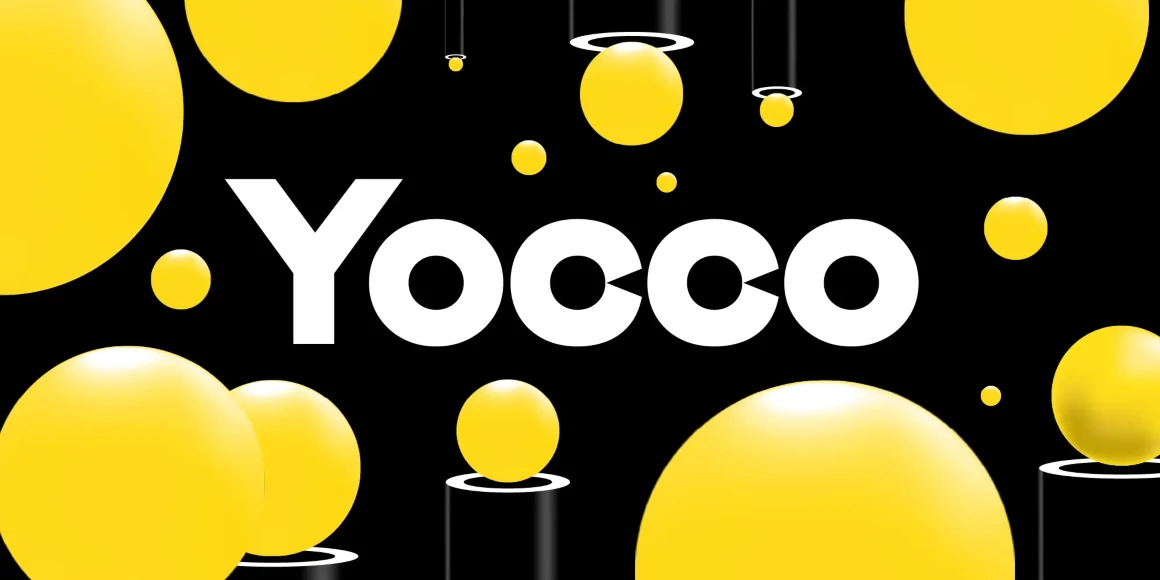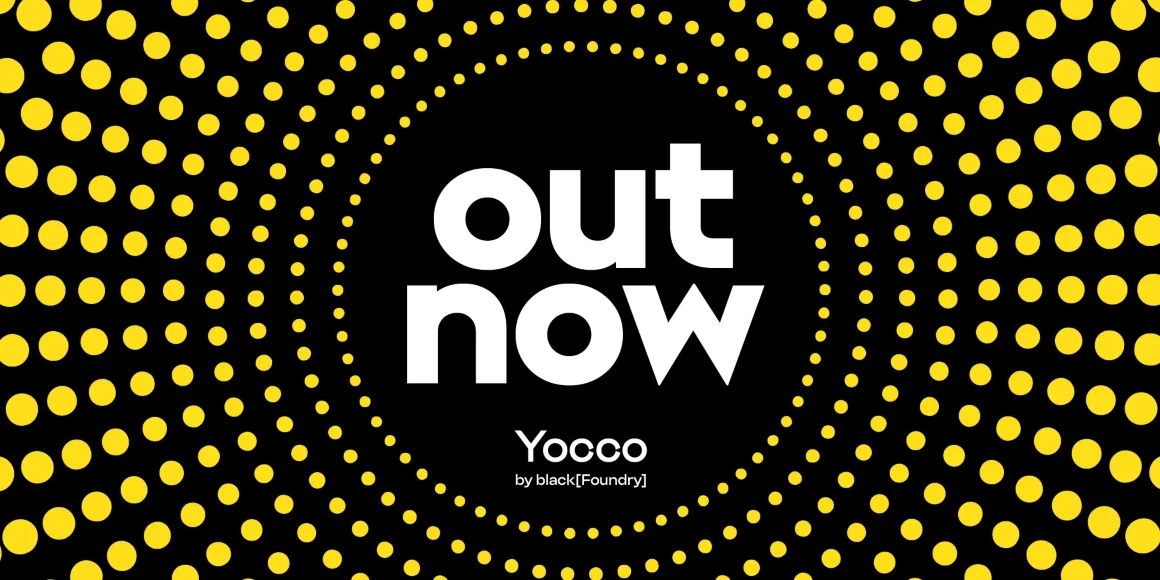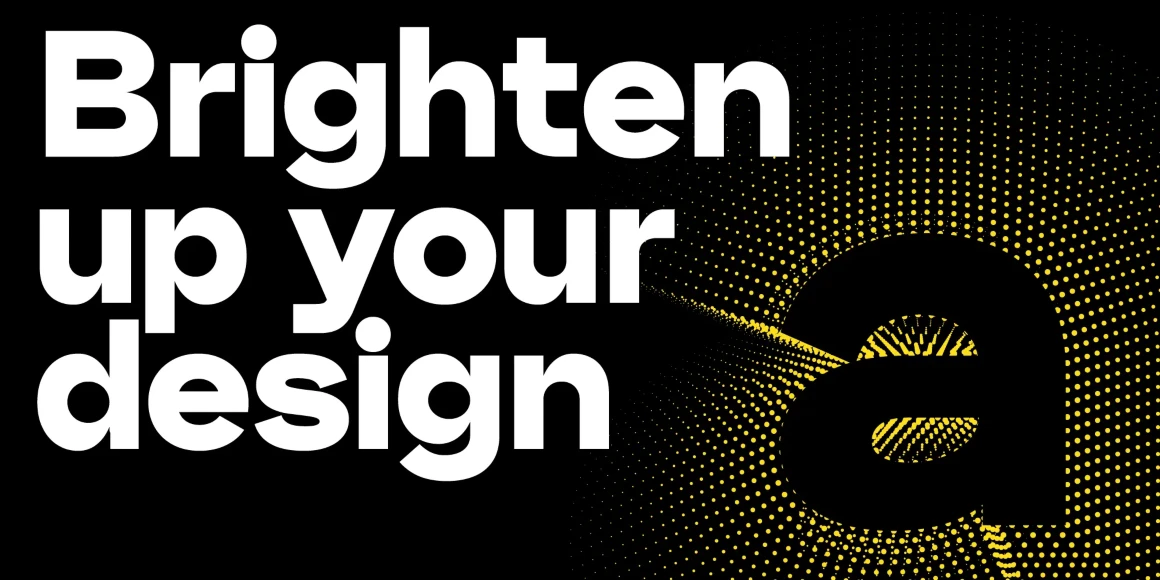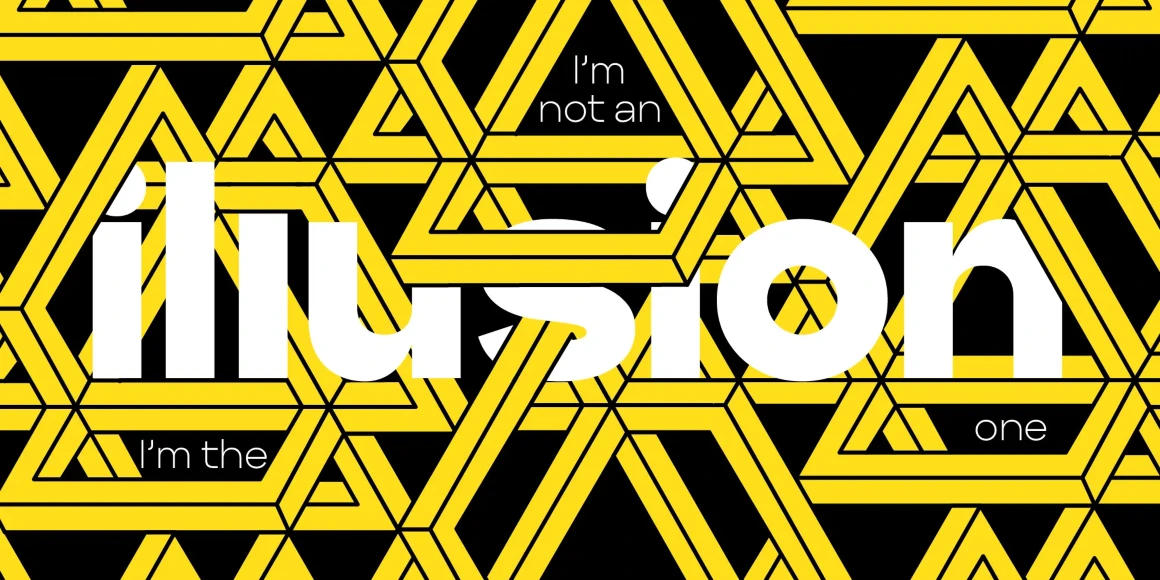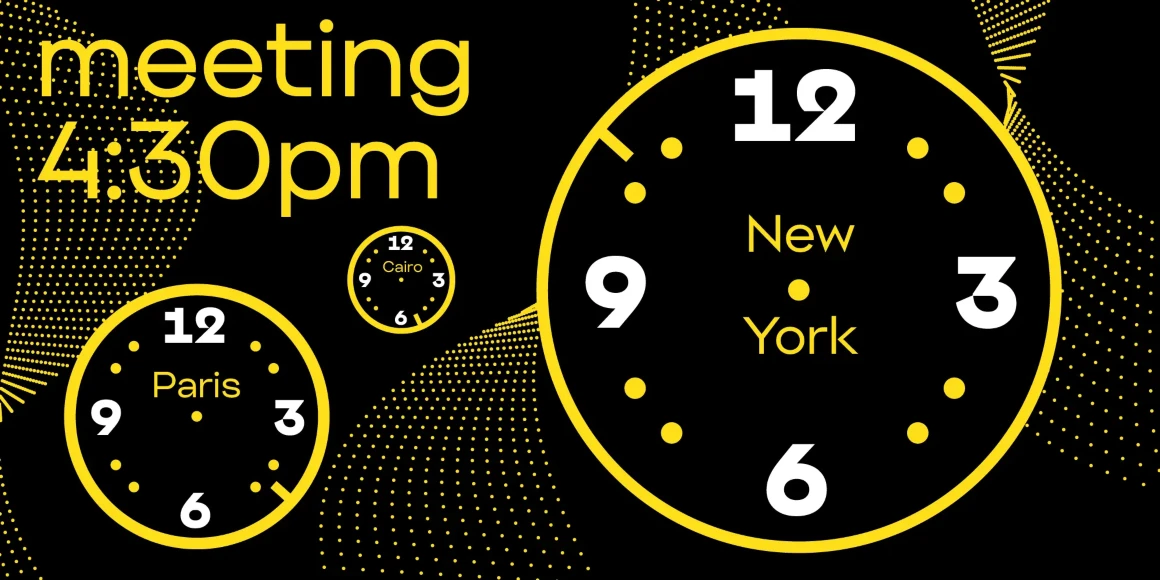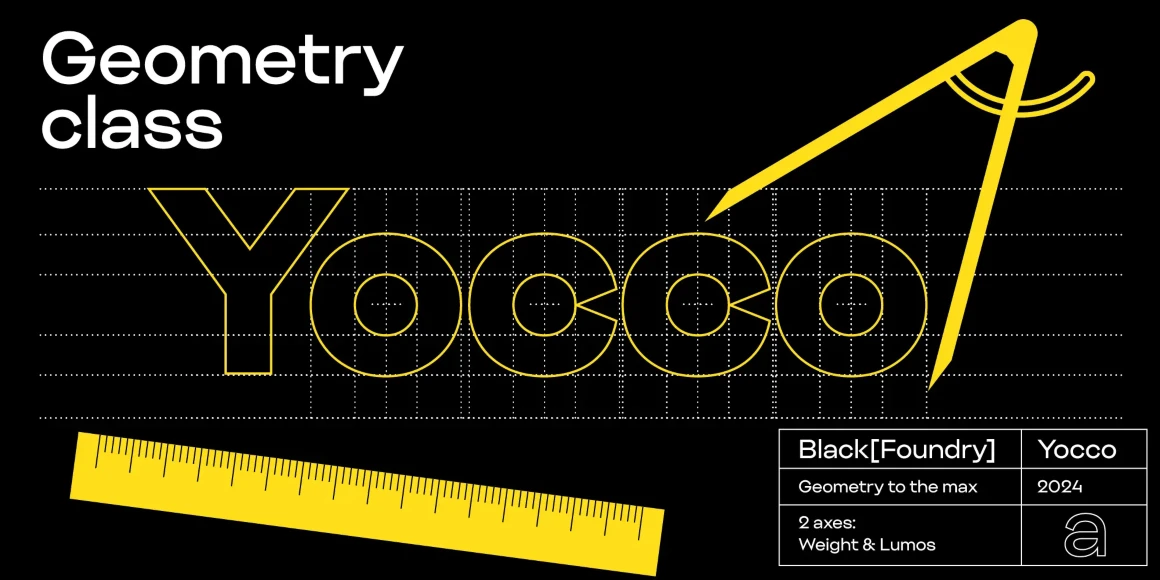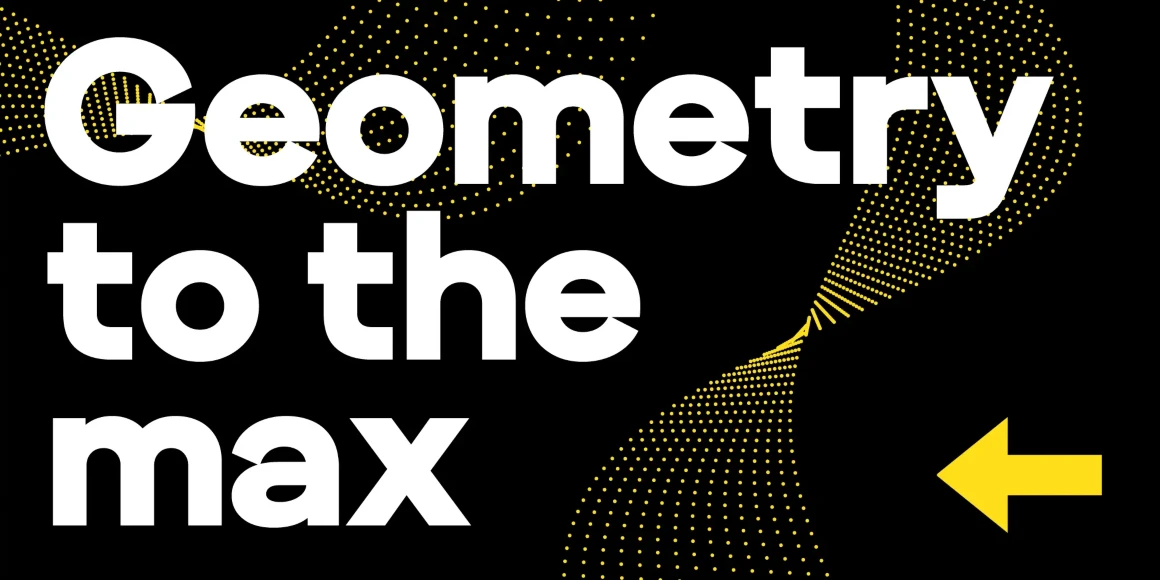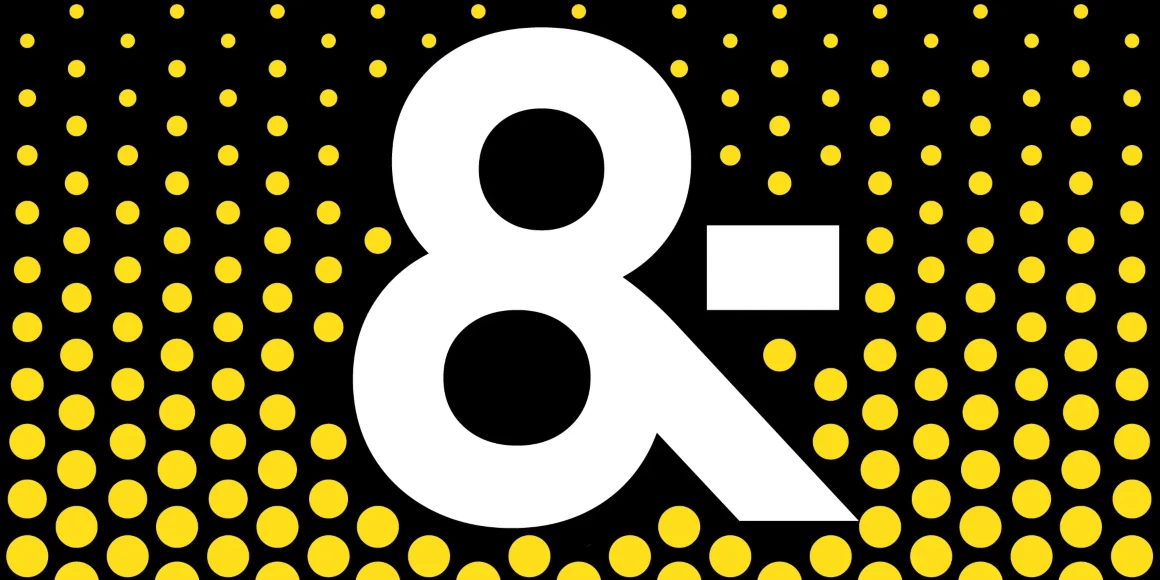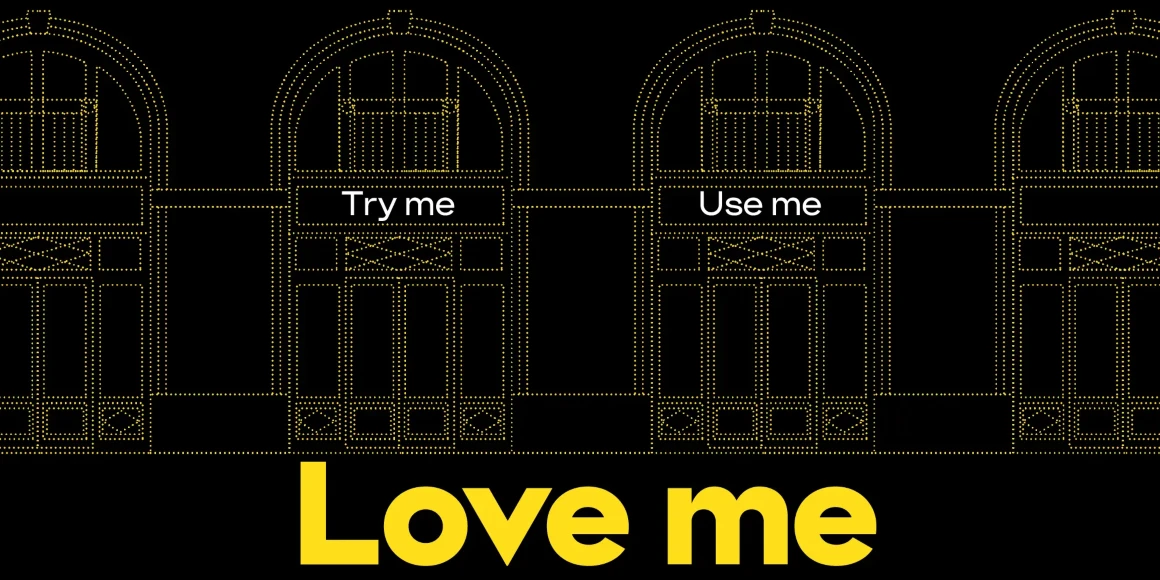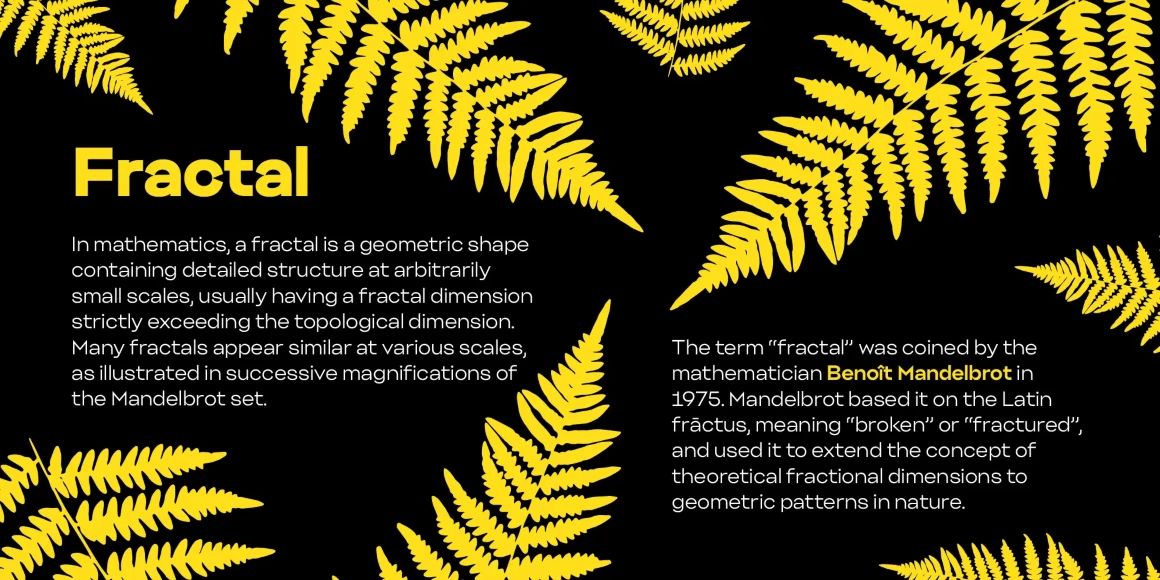
![Yocco font by Black[Foundry] — the word “Yocco” in a sans-serif typeface, surrounded by yellow spheres and cylinders, some with white rings.](https://typographer.io/1/assets/blk:yocco/banner-1.webp:size(1160,580)?61ff)
![Yocco font by Black[Foundry] — the words “Brighten up your design” in a bold sans serif, with a large letter “a” on the right filled with yellow dots that radiate outwards](https://typographer.io/1/assets/blk:yocco/banner-2.webp:size(1160,580)?dc3a)
![Yocco font by Black[Foundry] — the word “illusion” in large white sans-serif letters over a pattern of yellow outlined geometric shapes, with the words “I’m not an” and “I’m the one” in smaller white sans-serif letters above and below.](https://typographer.io/1/assets/blk:yocco/banner-3.webp:size(1160,580)?6411)
![Yocco font by Black[Foundry] — the words “meeting 4:30pm” and three clock faces with the words “New York”, “Paris”, and “Cairo”](https://typographer.io/1/assets/blk:yocco/banner-4.webp:size(1160,580)?aaf0)
![Yocco font by Black[Foundry] — the words “Geometry class” in white sans serif, a yellow outline of the word “Yocco” on a dotted grid, a yellow ruler, and a yellow compass drawing a circle and arc.](https://typographer.io/1/assets/blk:yocco/banner-5.webp:size(1160,580)?70cb)
![Yocco font by Black[Foundry] — the words “Geometry to the max” in a bold, upright sans serif, with a yellow arrow pointing left and yellow dotted lines forming a swirling pattern](https://typographer.io/1/assets/blk:yocco/banner-6.webp:size(1160,580)?c1db)
![Yocco font by Black[Foundry] — a large white ampersand with a rectangular counter, set against a black background with a pattern of yellow dots](https://typographer.io/1/assets/blk:yocco/banner-7.webp:size(1160,580)?6efa)
![Yocco font by Black[Foundry] — the words “Try me” and “Use me” in white sans serif letters above a dotted outline of four arched windows, and below them the words “Love me” in large yellow sans serif letters](https://typographer.io/1/assets/blk:yocco/banner-8.webp:size(1160,580)?3574)
![Yocco font by Black[Foundry] — the word “Fractal” in a bold sans serif, with text about fractals and yellow fern fronds scattered across a black background](https://typographer.io/1/assets/blk:yocco/banner-9.webp:size(1160,580)?0a2f)
![Yocco font by Black[Foundry] — the words “out now” in large sans serif letters, with “Yocco” and “by black[Foundry]” below, all within a circular frame of yellow dots that radiate outwards](https://typographer.io/1/assets/blk:yocco/banner-10.webp:size(1160,580)?d532)